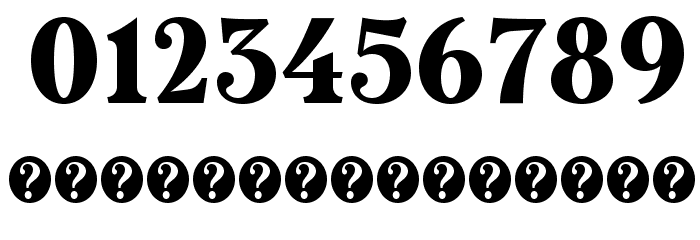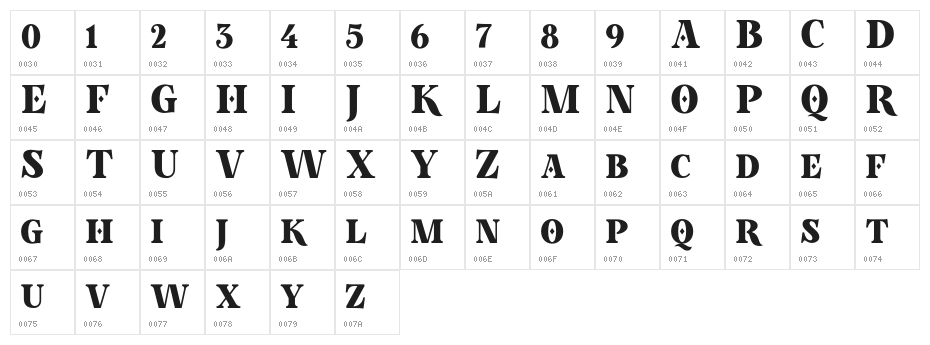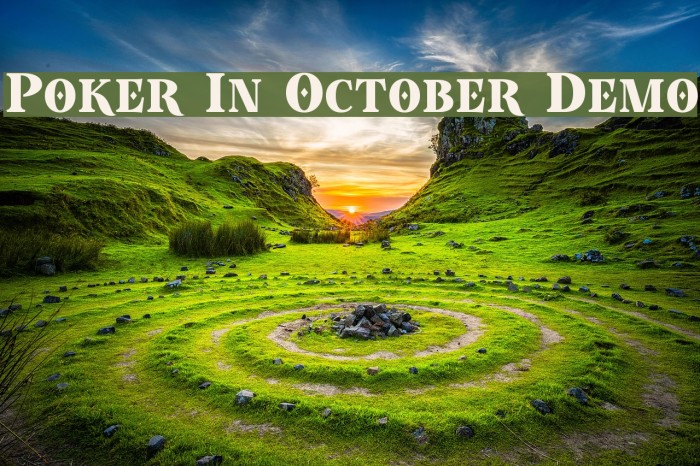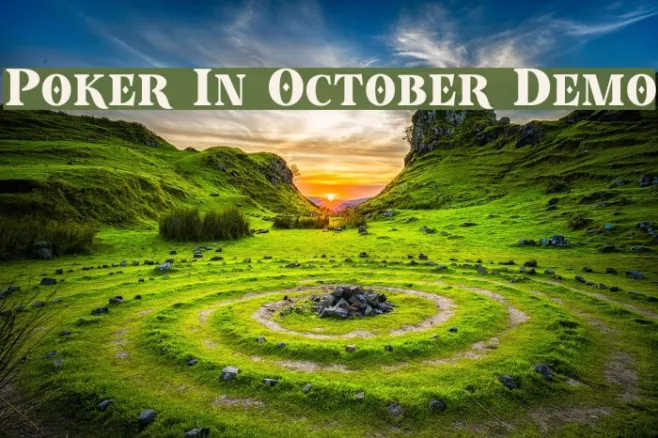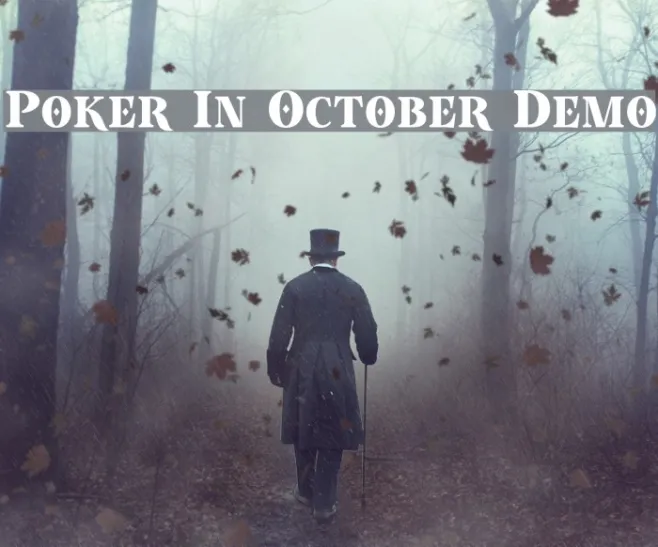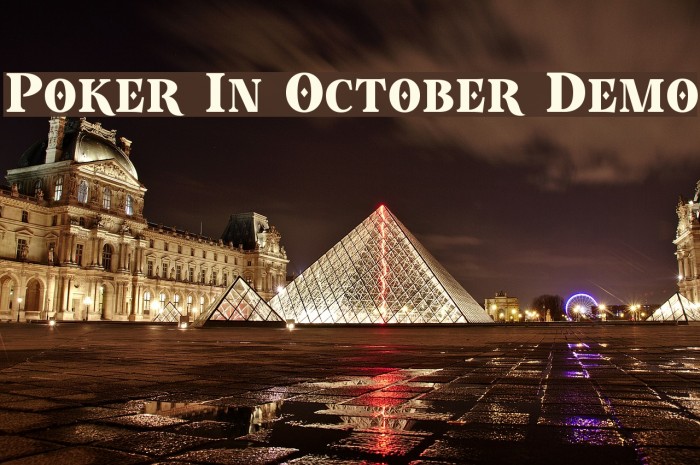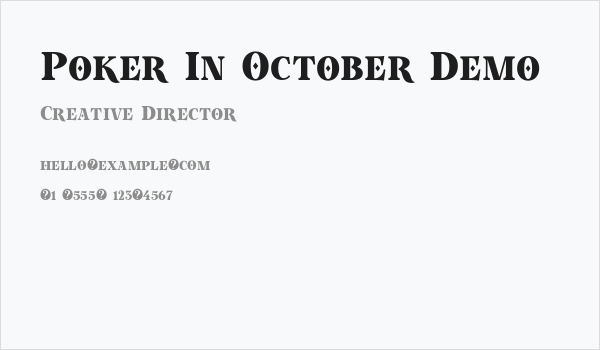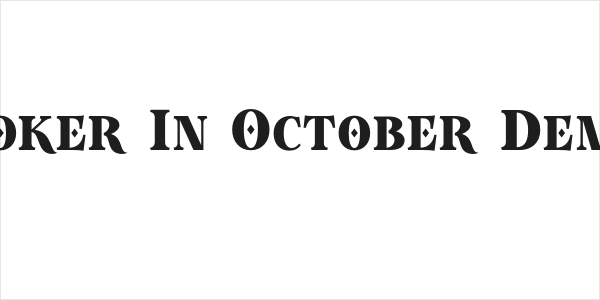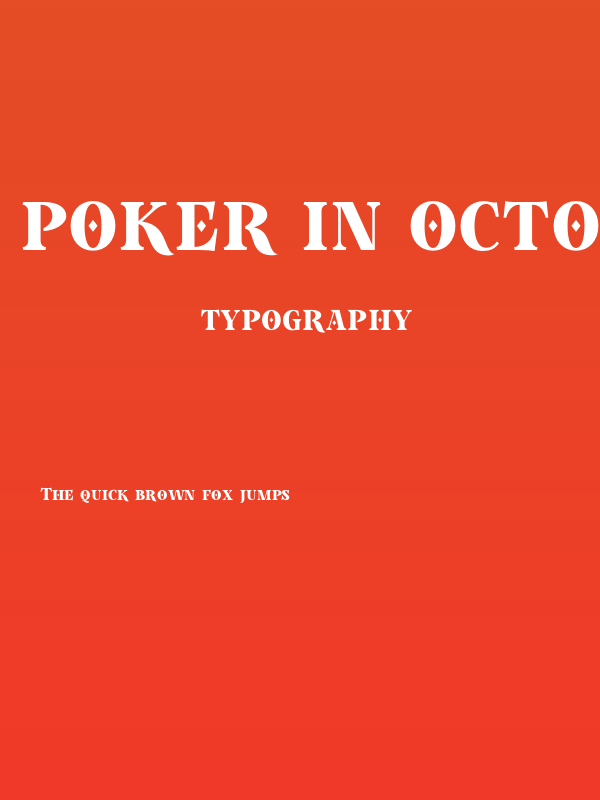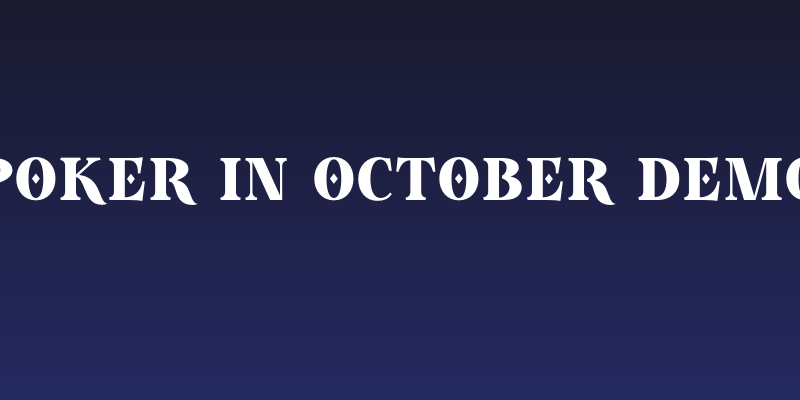
Poker In October Demo Font
Poker In October Demo Description
This font features a bold and striking design with a strong presence. The characters are crafted with a high contrast between thick and thin strokes, giving it a dynamic and eye-catching appearance. The serifs are prominent and angular, adding a touch of elegance and sophistication. The uppercase letters are particularly distinctive, with unique elements such as the decorative cutouts in the 'Q' and 'R'. The numbers are equally bold, maintaining the same high contrast and serif style. This font is ideal for making a statement and capturing attention.
| Proposed Projects | Ideal for headlines, posters, branding, and any project that requires a strong visual impact. |